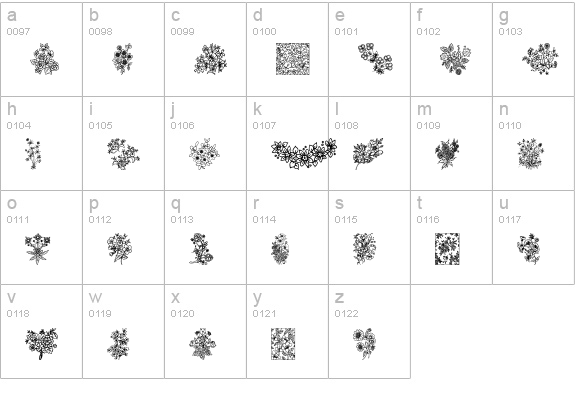
In your garden Font Details
In Your Garden font is a delightful and whimsical typeface that will transport you to a world of lush greenery, blooming flowers, and the soothing sounds of nature. This font captures the essence of a tranquil garden, with its graceful strokes and playful curves. In Your Garden font is a versatile and dynamic typeface that can be used for a variety of design projects. Whether you're creating invitations for a garden-themed event, designing a logo for a floral shop, or adding a touch of elegance to your personal blog, this font will bring a touch of natural beauty to your creations. One of the best things about In Your Garden font is that it is freely available to download at FontsMarket.com. This means that you can easily access this gorgeous typeface without any hassle. Whether you're a professional designer or a hobbyist, this font is perfect for adding a touch of charm and personality to your projects. With its wide range of characters and charming details, In Your Garden font will surely captivate your audience and make your designs stand out. Its flowing lines and delicate strokes give it a handcrafted feel, making it perfect for adding a touch of warmth and elegance to your creations. So why wait? Download In Your Garden font today and let your creativity blossom. Incorporate this beautiful typeface into your designs and watch as it transforms your work into a stunning masterpiece. With In Your Garden font, you have the freedom to create captivating designs that will leave a lasting impression.